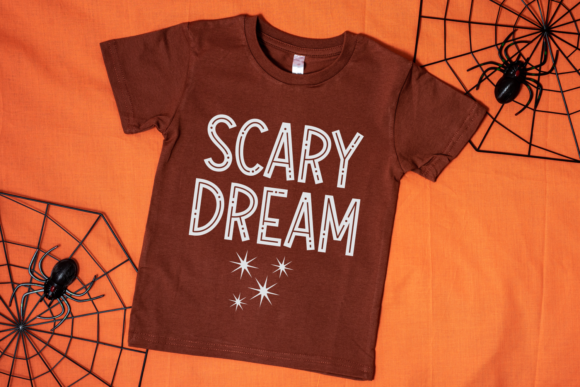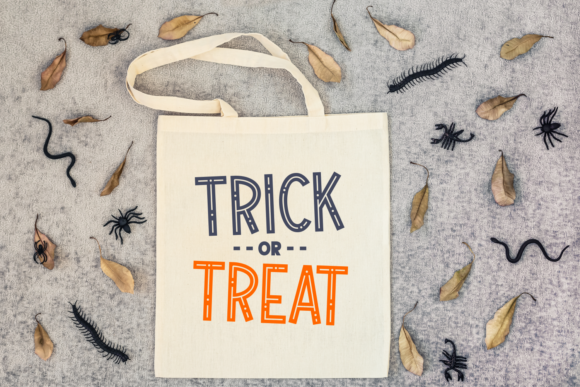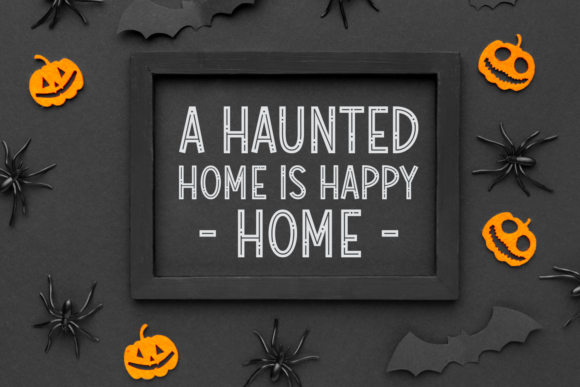
Grave Story Font: The Ultimate Display Font for Creative Designs
Are you a designer or crafter looking for a unique and versatile font to elevate your creative projects? Look no further than the Grave Story Font, a cool, neat, and adaptable display font that’s perfect for a wide range of designs. In this article, we’ll explore the features and benefits of Grave Story Font, and show you how it can be used to create stunning designs for t-shirts, sportswear, logos, advertisements, clothing, and more.
What is Grave Story Font?
Grave Story Font is a display font designed to make a statement. Its unique and stylish lettering makes it perfect for creative projects that require a bold and eye-catching font. The font is highly legible, even at large sizes, making it ideal for designs that need to be noticed. Whether you’re creating a logo, advertisement, or t-shirt design, Grave Story Font is sure to grab attention and leave a lasting impression.
Key Features of Grave Story Font
- Cool and Neat Design: Grave Story Font has a cool and neat design that’s perfect for creating stylish and modern designs.
- Adaptable: This font is highly adaptable and can be used for a wide range of designs, from logos and advertisements to t-shirts and sportswear.
- Highly Legible: Grave Story Font is highly legible, even at large sizes, making it perfect for designs that need to be noticed.
- Unique and Stylish Lettering: The font features unique and stylish lettering that will make your designs stand out from the crowd.
Uses of Grave Story Font
Grave Story Font is a versatile font that can be used for a wide range of designs, including:
- T-Shirts and Apparel: Create stylish and eye-catching t-shirt designs with Grave Story Font.
- Sportswear: Use Grave Story Font to create bold and attention-grabbing sportswear designs.
- Logos: Create unique and memorable logos with Grave Story Font.
- Advertisements: Use Grave Story Font to create eye-catching advertisements that grab attention.
- Clothing and Fashion: Grave Story Font is perfect for creating stylish and fashionable designs for clothing and accessories.
Benefits of Using Grave Story Font
There are many benefits to using Grave Story Font for your creative projects. Some of the benefits include:
- Increased Visibility: Grave Story Font is designed to grab attention and increase visibility for your designs.
- Improved Brand Recognition: Use Grave Story Font to create unique and memorable logos and branding materials.
- Enhanced Creativity: Grave Story Font is a versatile font that can be used for a wide range of designs, allowing you to express your creativity and bring your ideas to life.
- Easy to Read: Grave Story Font is highly legible, making it easy for readers to quickly and easily understand your message.
Tips for Using Grave Story Font
Here are some tips for using Grave Story Font in your designs:
- Experiment with Different Sizes: Grave Story Font is highly legible, even at large sizes, so don’t be afraid to experiment with different sizes to create visual interest.
- Pair with Other Fonts: Grave Story Font can be paired with other fonts to create a unique and stylish design.
- Use for Headlines and Titles: Grave Story Font is perfect for headlines and titles, where you want to grab attention and make a statement.
Grave Story Font is a cool, neat, and adaptable display font that’s perfect for creative designers and crafters. With its unique and stylish lettering, high legibility, and versatility, Grave Story Font is ideal for a wide range of designs, from t-shirts and sportswear to logos and advertisements. Whether you’re looking to create a bold and eye-catching design or a stylish and modern logo, Grave Story Font is the perfect choice.